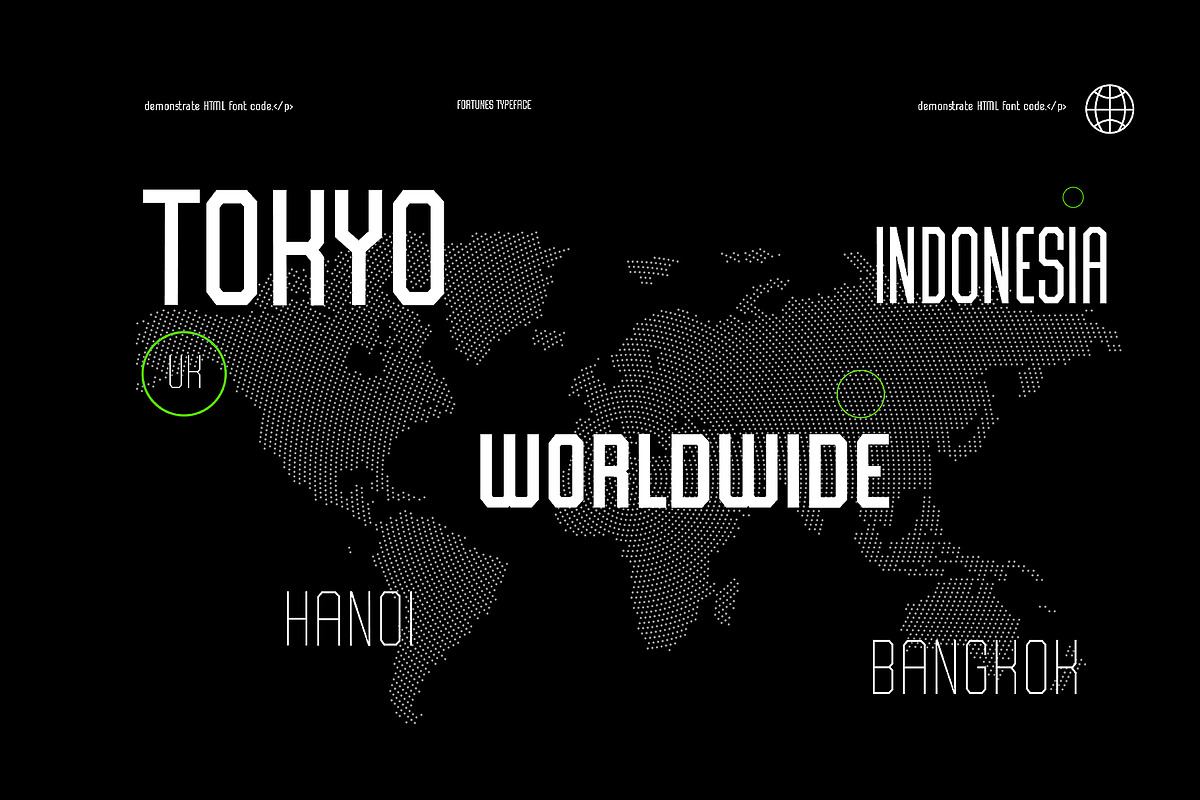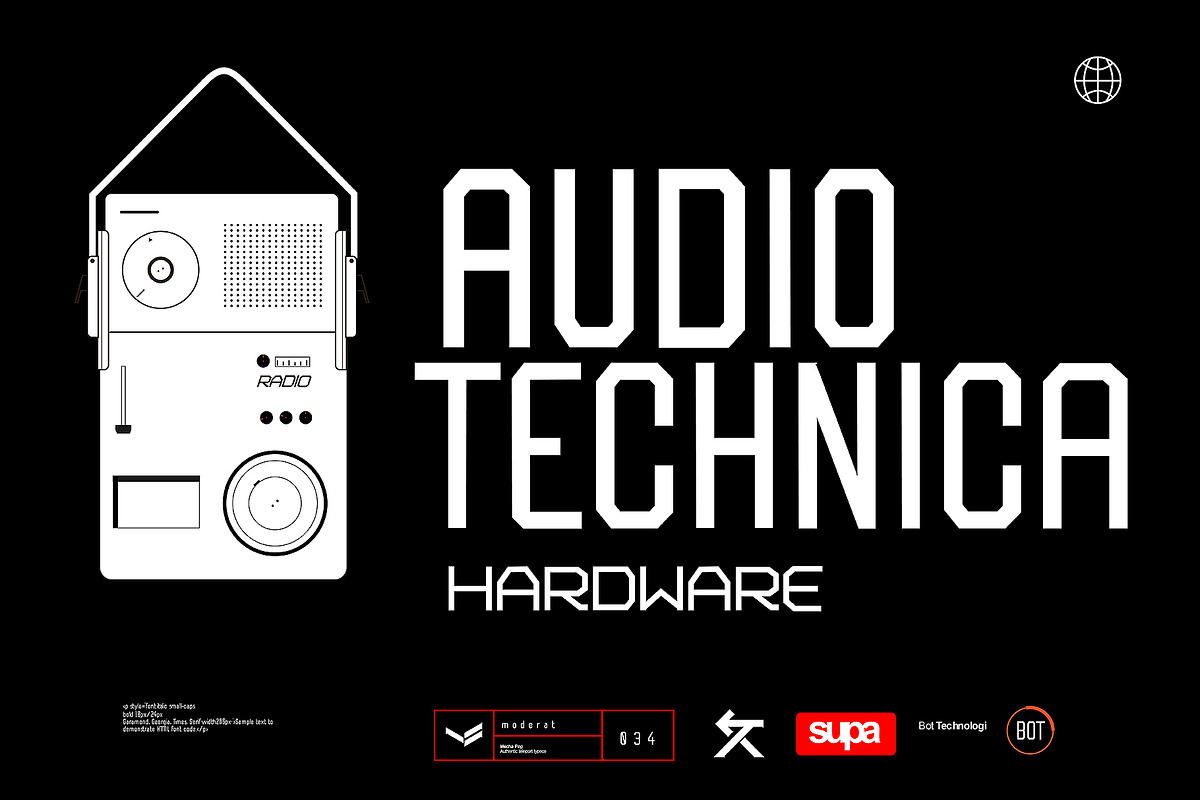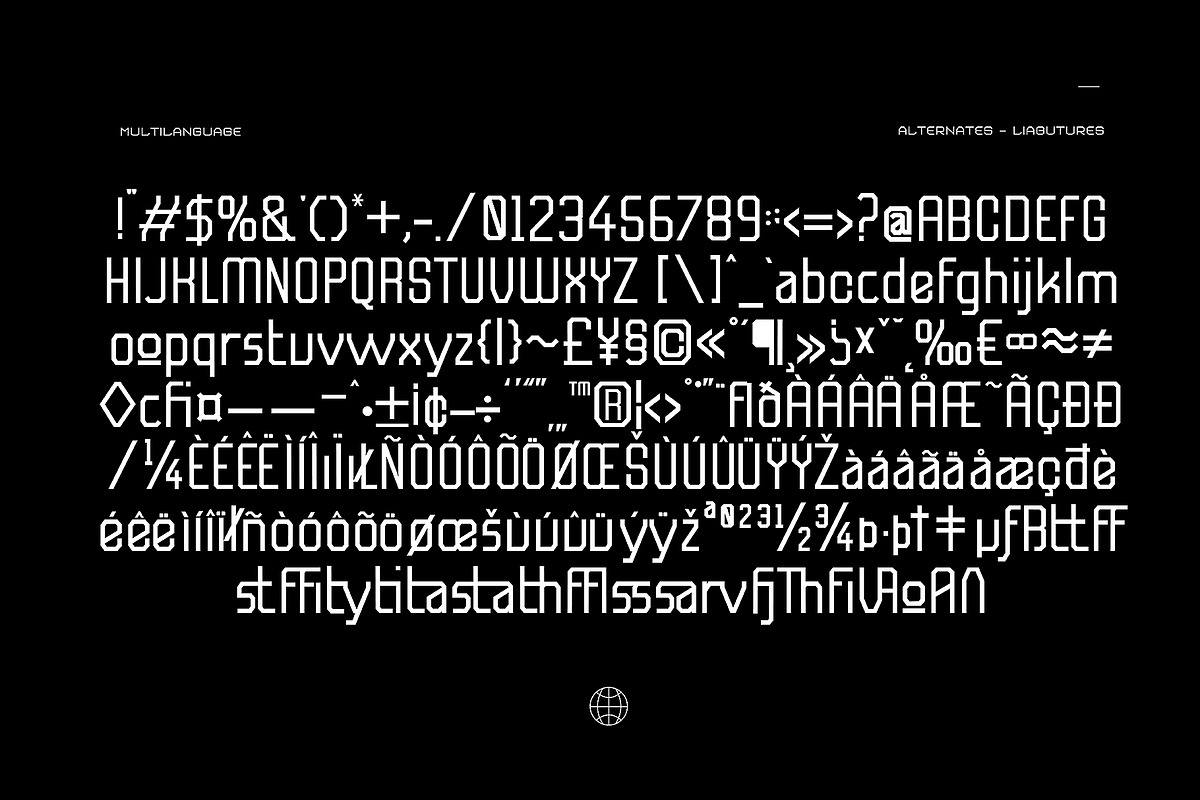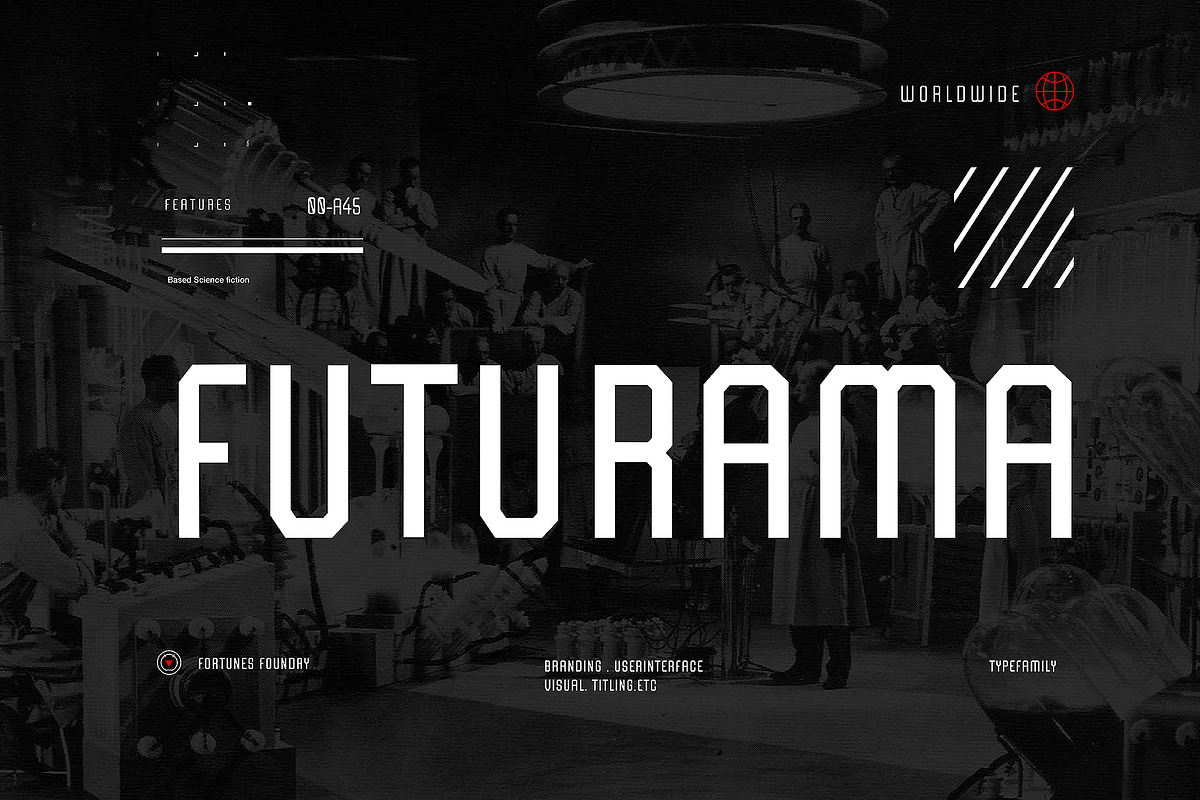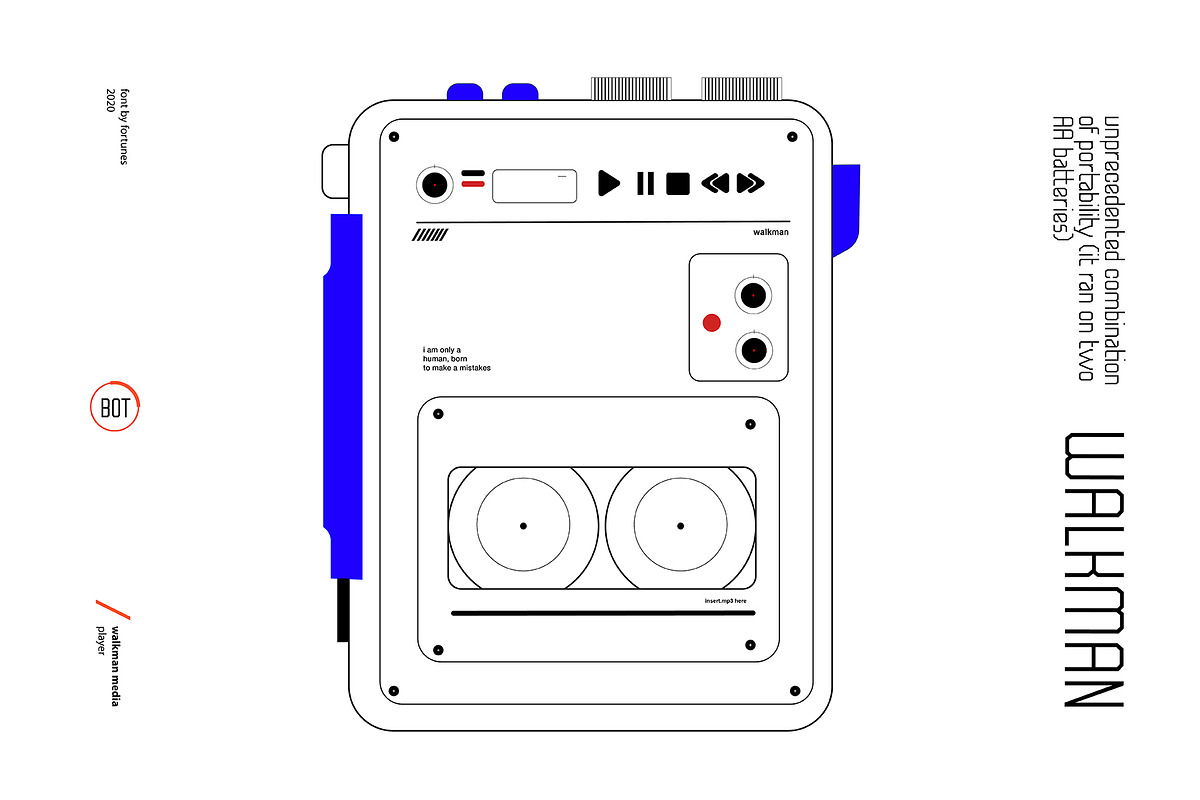
Futurama Modern Titling Fonts
Futurama is a bold and unique display font. Masterfully designed to become a true favorite character, you could used for user interface, titling, branding, logo, film title, big title, promotion, etc.
Futurama Modern Titling Fonts by Fortunes Co fits naturally into Branding, posters, packaging, typography.